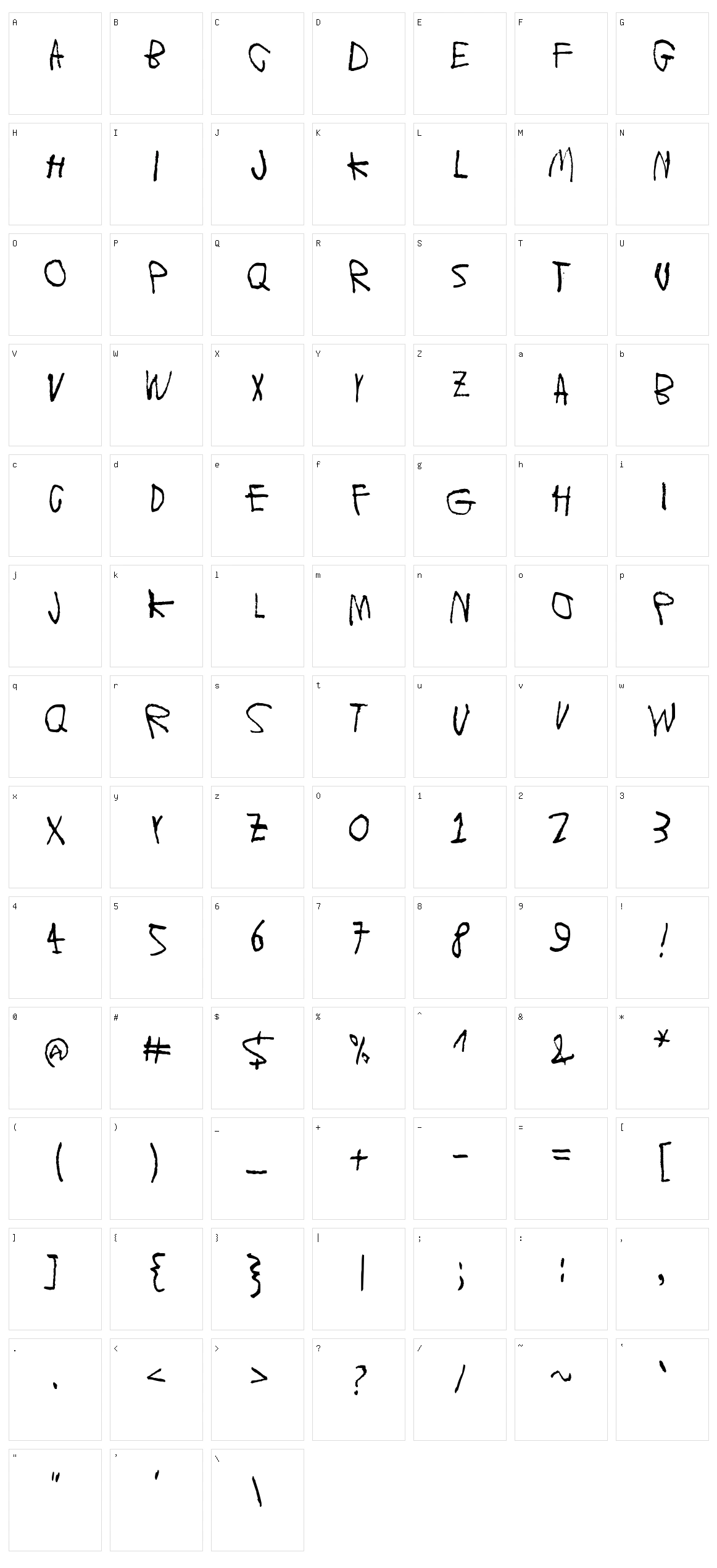
The free font Moons of Jupiter is carefully designed by junkohanhero, showcasing a thoughtful balance of creativity and usability and falls under the Trash font style. When you download the ZIP file, it contains only 325.69 KB of font files, making it lightweight and quick to download. Please review the license details below to understand permitted usage and distribution rights. If license information is not available, we recommend using this font for personal projects only or contacting the author directly for commercial usage permissions.